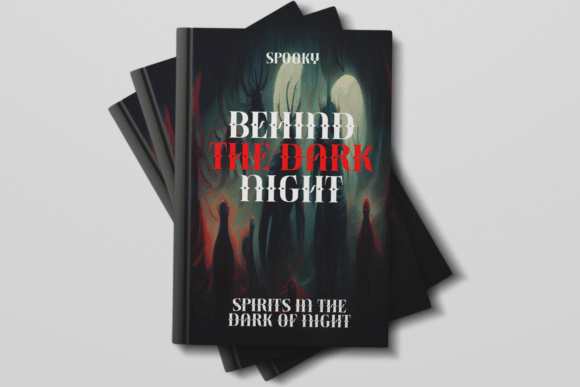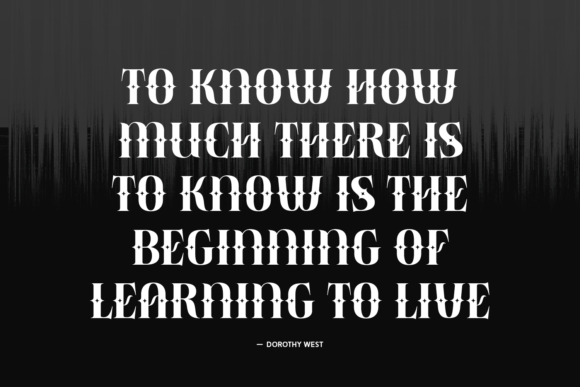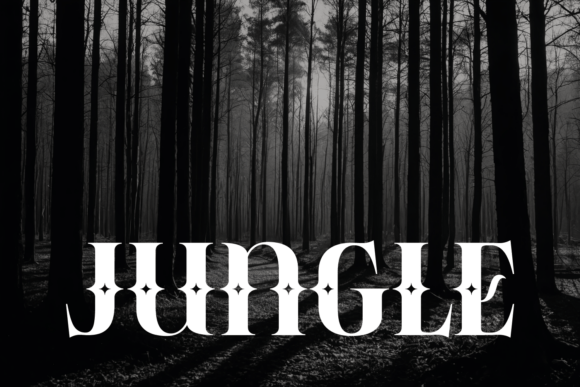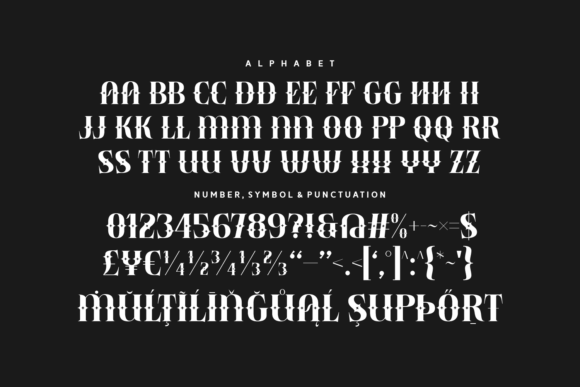
Introducing Guest Guard Font: A Magical Blackletter Font for Fantasy and Mystical Themes
As the early autumn season approaches, designers and crafters are on the lookout for typography that captures the essence of fantasy and mysticism. Look no further than the Guest Guard Font, a unique blackletter font that combines elegance with a touch of magic. This stunning font features decorative star-like sparkles integrated within the letterforms, giving it a distinctive and captivating feel.
What is Guest Guard Font?
Guest Guard Font is a specially designed blackletter font that boasts an extraordinary feature – intricate, star-like sparkles woven into the letterforms. This design element elevates the font from a traditional blackletter style to a magical and elegant typography solution, perfect for projects that require a sense of fantasy and wonder.
Key Features of Guest Guard Font
- Unique Decorative Sparkles: The standout feature of Guest Guard Font is its decorative star-like sparkles. These sparkles are meticulously integrated into the letterforms, creating a visually striking effect that sets this font apart from others in the blackletter category.
- Magical and Elegant Feel: The combination of traditional blackletter style with the modern, whimsical touch of sparkles gives Guest Guard Font a magical and elegant feel. This makes it an excellent choice for designs that aim to evoke a sense of mystery, fantasy, or mysticism.
- Perfect for Fantasy and Mystical Themes: Given its distinctive design, Guest Guard Font is particularly well-suited for themes related to fantasy, mysticism, and magic. Whether you’re working on a project for the early autumn season, Halloween, or any other occasion that calls for a mystical vibe, this font is sure to impress.
- Verse and Display Use: While its decorative nature makes it an excellent choice for display purposes, Guest Guard Font’s clarity and readability also make it suitable for longer verses, provided they’re used in a context where the magical theme aligns with the content.
Using Guest Guard Font in Design Projects
Guest Guard Font’s versatility allows it to be used across a variety of design projects. Here are some ideas on how to incorporate this beautiful font:
- Autumn and Halloween-themed Designs: Use Guest Guard Font to create eye-catching posters, flyers, and social media graphics that capture the essence of the season.
- Branding and Logos: For businesses operating in the fantasy, mystical, or creative sectors, this font can be a unique element in logo design or brand identity.
- Stationery and Invitations: Add a touch of magic to your stationery, invitations, or greeting cards with Guest Guard Font.
- Web Design: Use this font for headings or titles on websites that focus on fantasy, mysticism, or similar themes to create an immersive user experience.
Tips for Maximizing Impact with Guest Guard Font
To get the most out of Guest Guard Font, consider the following tips:
- Contrast is Key: Ensure that the background contrasts well with the font color to make the sparkles and letterforms stand out.
- Balance with Simpler Fonts: When using Guest Guard Font for body text, consider balancing it with a simpler font to maintain readability.
- Play with Colors: Experiment with different colors to see how they affect the overall feel of the font. Metallic or pastel colors can enhance the magical effect.
Guest Guard Font is a remarkable addition to any designer’s toolkit, especially those who work with fantasy and mystical themes. Its unique blend of traditional blackletter style with decorative sparkles offers endless possibilities for creative expression. Whether you’re designing for the early autumn season or simply looking to add a magical touch to your projects, Guest Guard Font is sure to enchant both you and your audience.